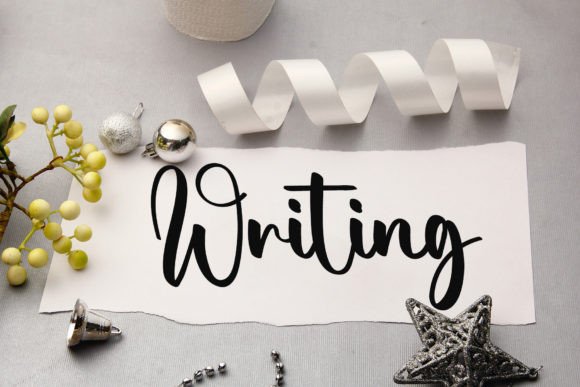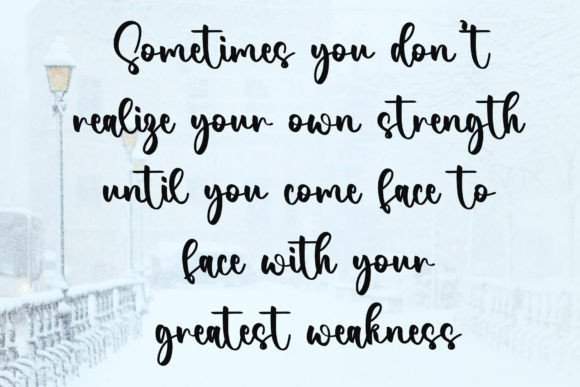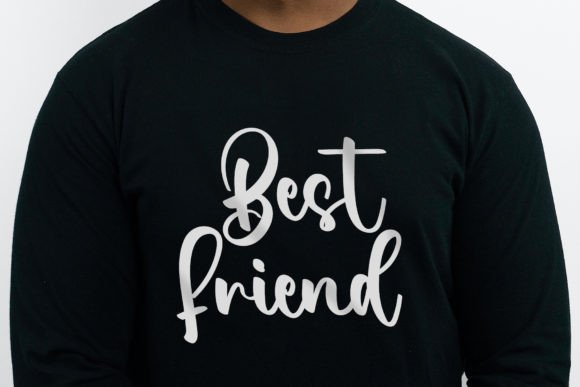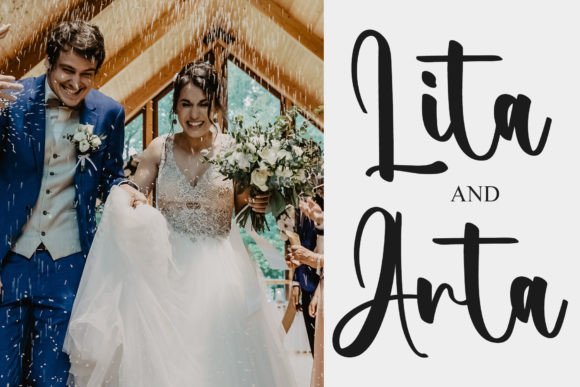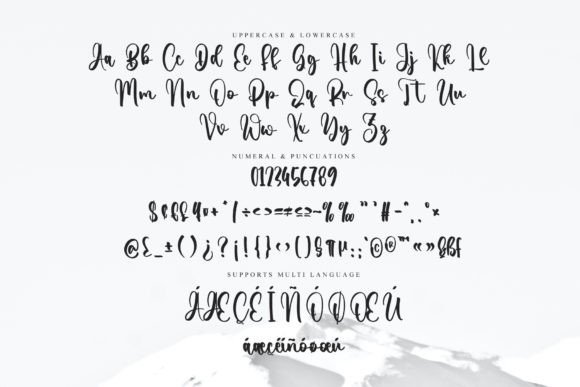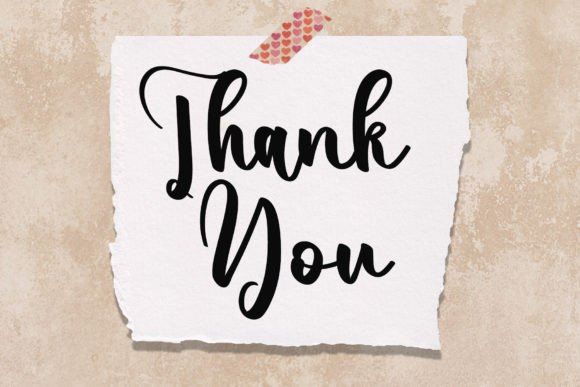
Introduction to Quartely Font
Do you remember the moment when you stumbled upon the perfect design element that transformed your creative project from ordinary to extraordinary? For many designers, it’s that ‘aha’ moment when all the pieces fall into place, and the project takes on a life of its own. I’m sure you’re eager to experience that magic once again, and today, I’m excited to share with you a hidden gem that’s sure to add a touch of whimsy to your next design project – the Quartely Font.
This lovely and sweet handwritten script font is a treasure trove for designers, offering a high-quality design resource that’s free to download and perfect for a wide range of creative projects. With its transparent background, Quartely Font is incredibly versatile, allowing you to add a joyful and romantic touch to your designs without any fuss.
Key Features of Quartely Font
- High-quality design resource with a modern and elegant aesthetic, ideal for creative projects.
- Features a transparent background, making it perfect for use on light or dark backgrounds.
- Unique characteristics include its clean lines, geometric shapes, and subtle texture, making it stand out from other fonts.
- Perfect for use in various design projects, including logos, branding, and advertising materials.
Honest Review: Quartely Font
As a designer, I’m always on the lookout for high-quality design resources that can elevate my creative projects. Recently, I stumbled upon the Quartely Font, and I must say, it’s been a game-changer.
Here are some aspects where the Quartely Font truly shines:
- ✨ Unique and elegant design: The font has a distinctive feel that sets it apart from more generic fonts.
- ✨ High-quality graphics: The font is beautifully crafted, with intricate details and a crisp, clean look.
- ✨ Transparent background: This makes it easy to use the font on any background, without worrying about compatibility issues.
- ⚠️ Limited character set: The font may not have all the characters you need for a specific project.
- ⚠️ Not suitable for all designs: The font’s elegant design may not be the best fit for more playful or bold projects.
Overall, I’m impressed with the Quartely Font. It’s a great addition to any designer’s toolkit, and I appreciate that it’s available for free download. With some careful planning, it can be a fantastic resource for any creative project.
Tips for Getting the Most Out of Quartely Font
Use the Quartely Font in combination with other design elements, such as images and shapes, to create a unique and visually appealing design. Experiment with different font sizes and styles to add depth and interest to your design.
Common Use Cases for Quartely Font
The Quartely Font is suitable for a wide range of creative projects, including business cards, brochures, and social media graphics. Its high-quality design and transparent background make it a versatile and practical design resource for any project.